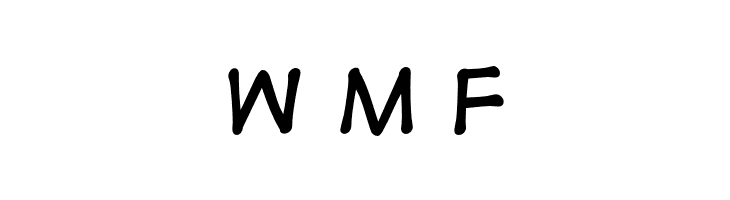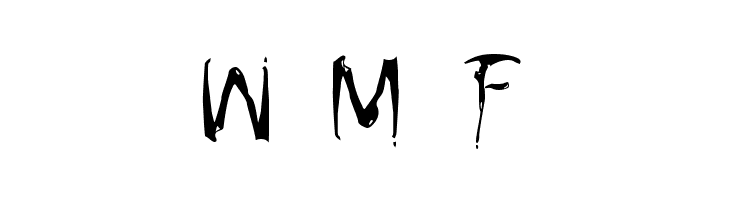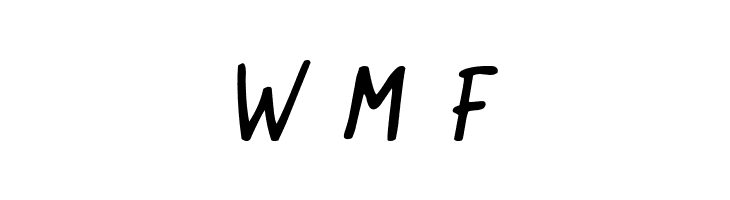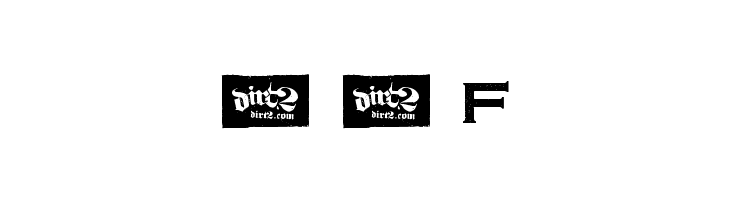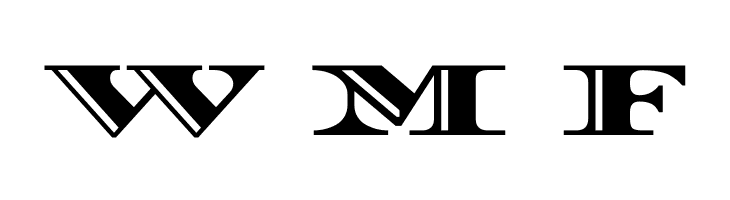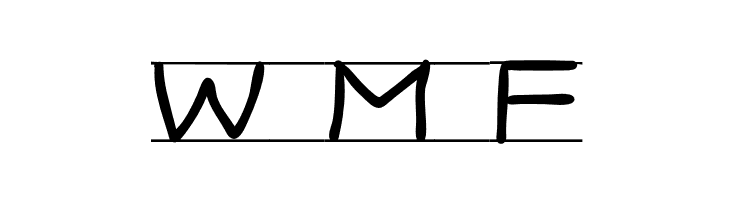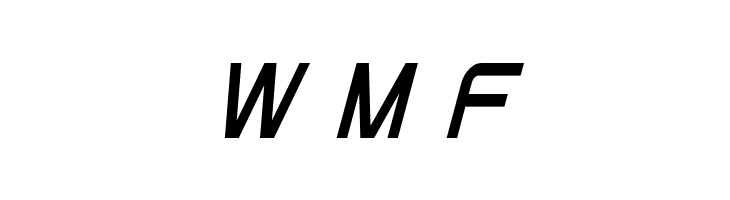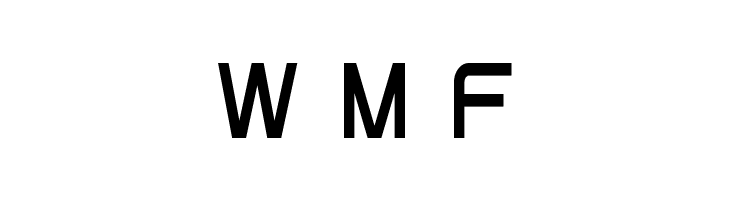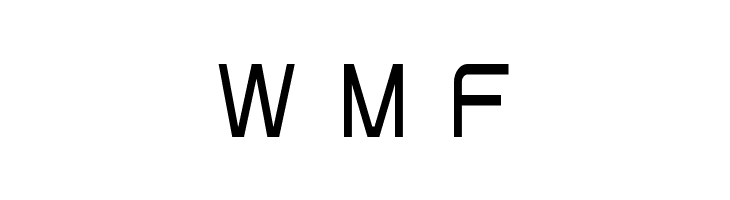
A playful, handwritten font with rounded, consistent strokes and a casual vibe.
A bold, italicized, handwritten-style font with a playful and dynamic appearance.
A bold, italic script font with a playful, handwritten style.
A futuristic, digital-inspired font with bold, geometric shapes and rounded corners.
A bold, italic font with a dynamic and energetic style.
A bold and assertive font with thick strokes and high legibility.
A hand-drawn, artistic font with a playful and informal style.
A modern, geometric sans-serif font with rounded edges and consistent stroke widths.
A modern, geometric sans-serif font with rounded shapes and uniform stroke width.
A decorative dingbat font with whimsical and thematic icons.
A bold, graffiti-inspired font with dynamic shapes and intricate details.
A bold, outlined dingbat font of department store-themed icons.
A bold, edgy font with a prehistoric, hand-drawn style.
Highly detailed dinosaur silhouettes replace standard characters.
A casual, handwritten italic font with smooth, rounded strokes.
A classic serif font with elegant curves and sharp serifs, perfect for formal and modern uses.
A bold and elegant font with a classic and sophisticated style.
A bold, geometric font with a futuristic and modern design.
A futuristic, angular font with bold lines and geometric shapes.
A distressed, grunge-style font with decorative swirls and splatters.
A grunge, distressed font with decorative elements and a bold, edgy style.
A bold, distressed font with a grunge, textured style.
A bold, distressed font with a gritty, vintage appearance.
A bold, futuristic font with geometric and decorative elements.